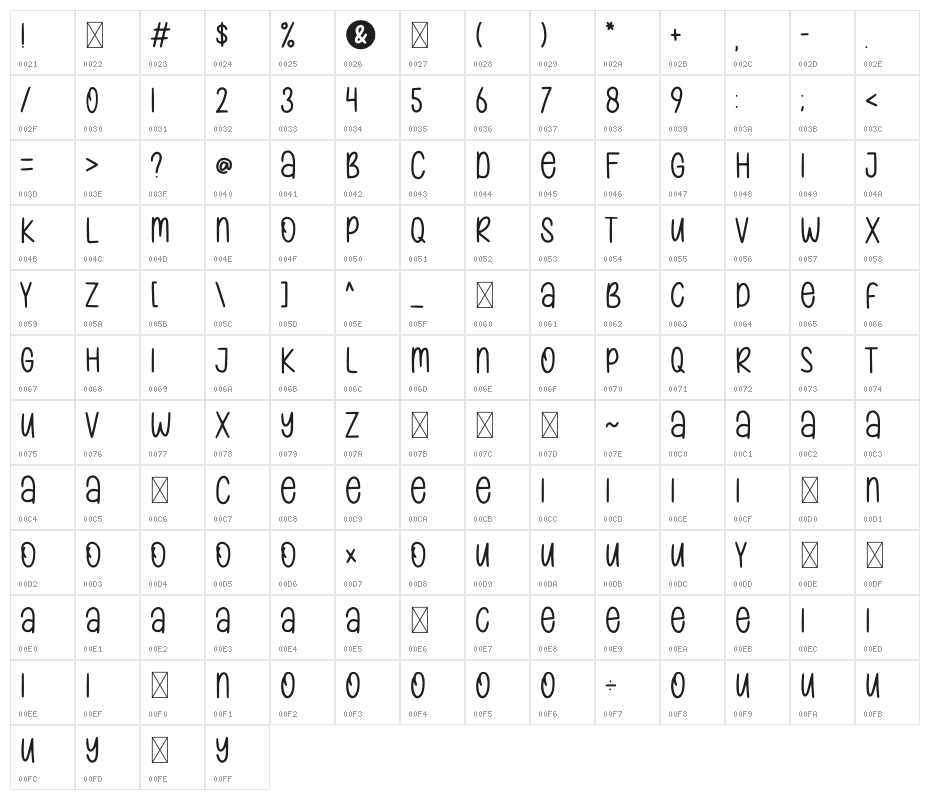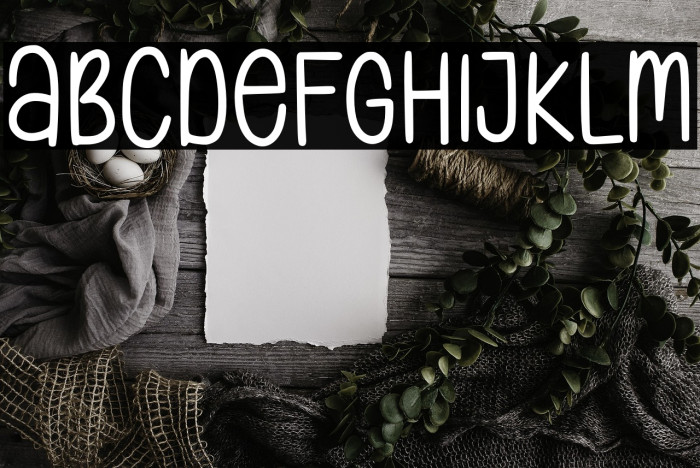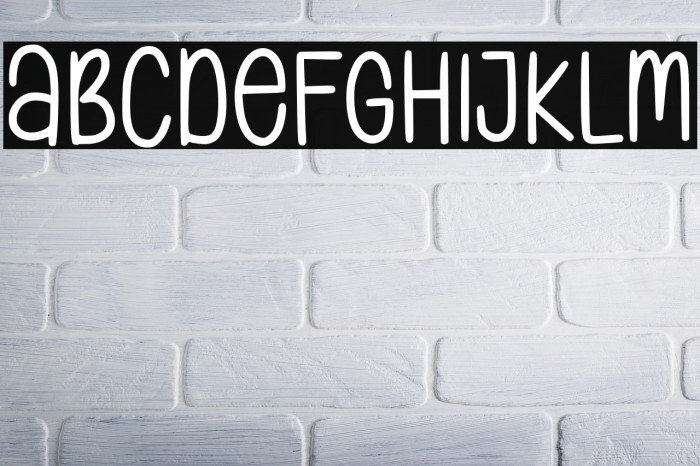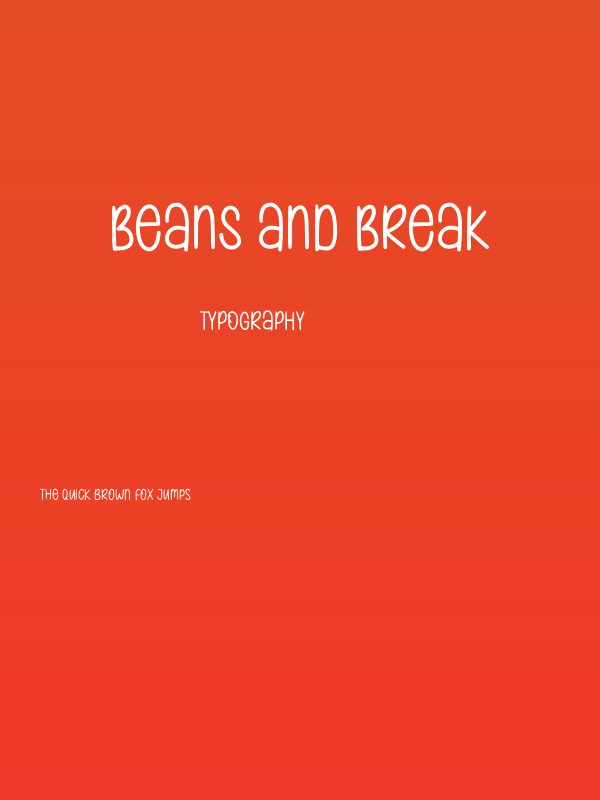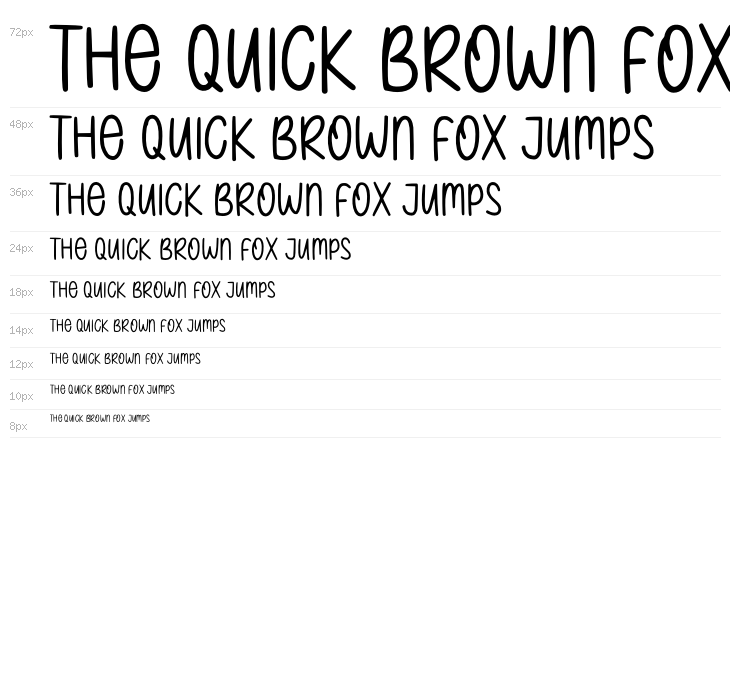
Beans And Break Font
Beans And Break Description
This playful and whimsical font features a handwritten style with rounded edges and a casual, friendly appearance. The characters are slightly elongated, giving them a unique and approachable look. The uppercase and lowercase letters maintain a consistent style, with smooth curves and a uniform stroke width. Numbers and special characters are designed to match the overall aesthetic, ensuring a cohesive look across all text. This font is perfect for projects that require a touch of personality and charm, such as children's books, greeting cards, or playful branding materials.
| Proposed Projects | Ideal for children's books, greeting cards, playful branding, and casual invitations. |